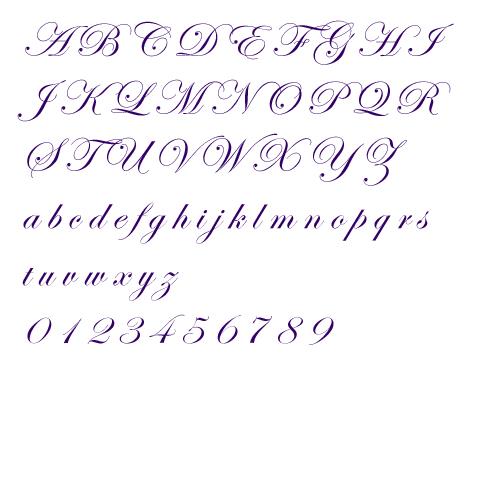
Fireside Threads is happy to present Edwardian Alphabet machine embroidery font which has This flowing script machine embroidery font showcases stylish loops and flourishes, making it ideal for personalizing table linens and home decor. Available in PES, DST, and 10 additional formats. included. If you would like to view more embroidery fonts and alphabets please search our embroidery fonts page.